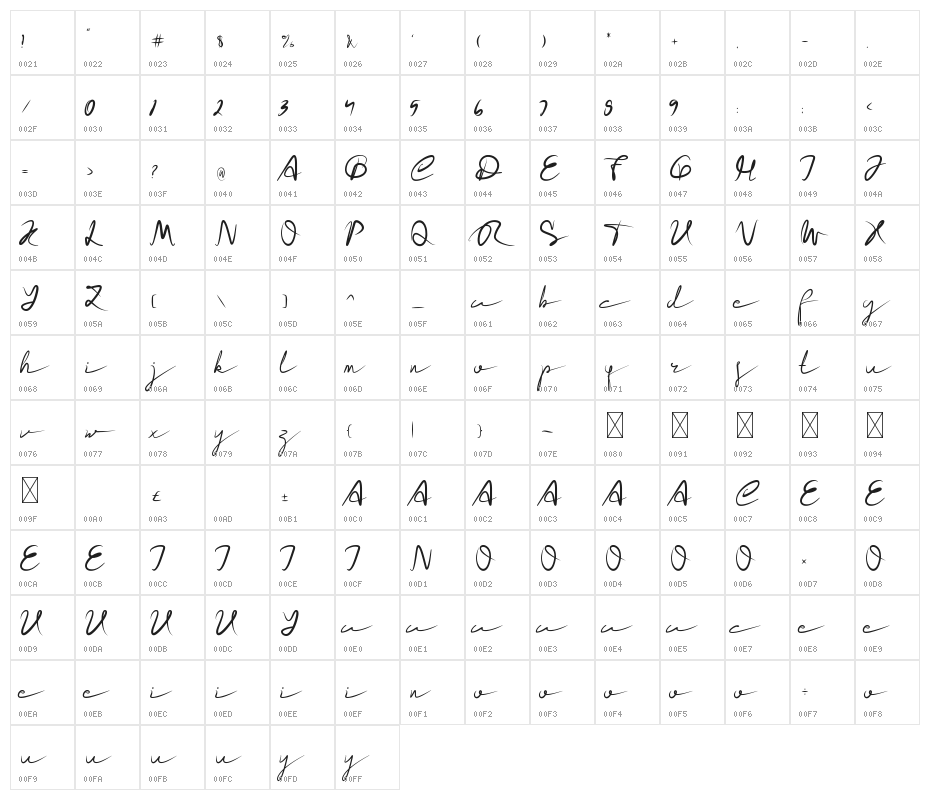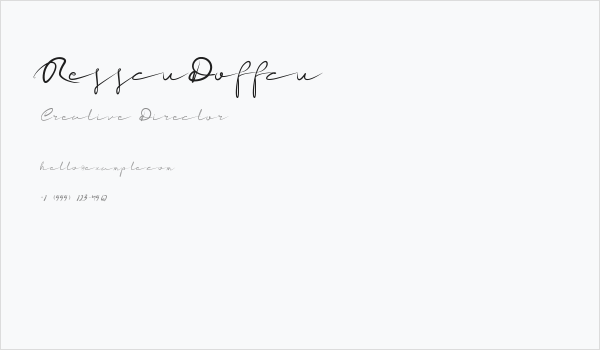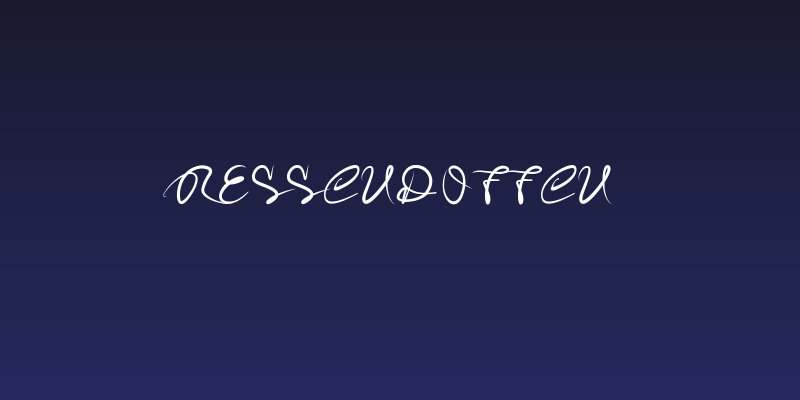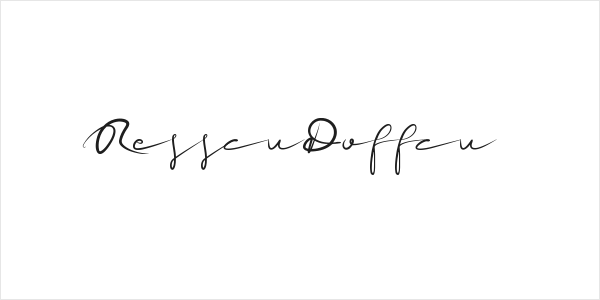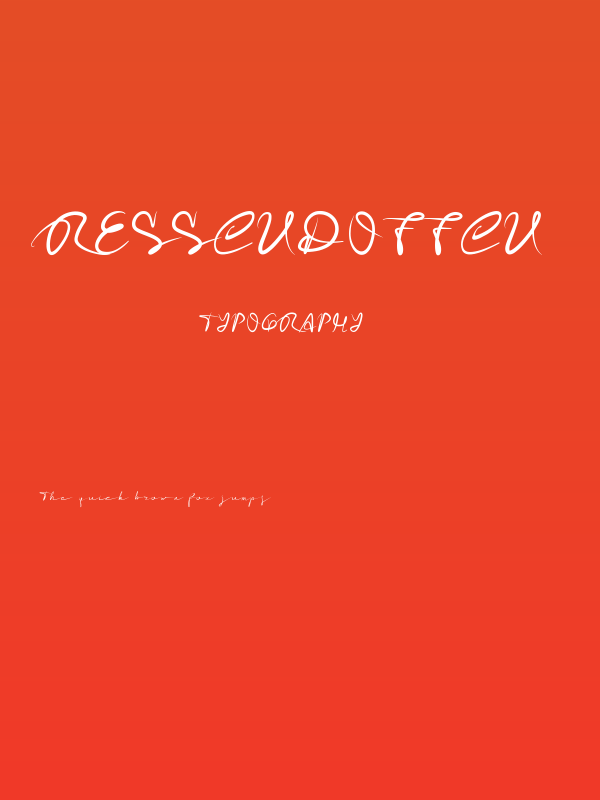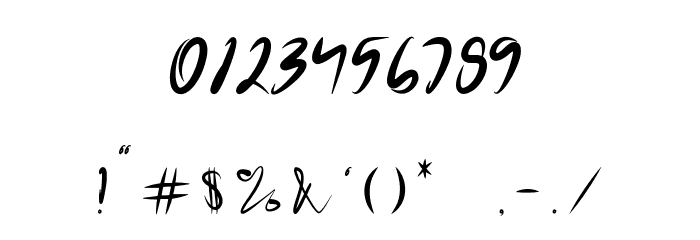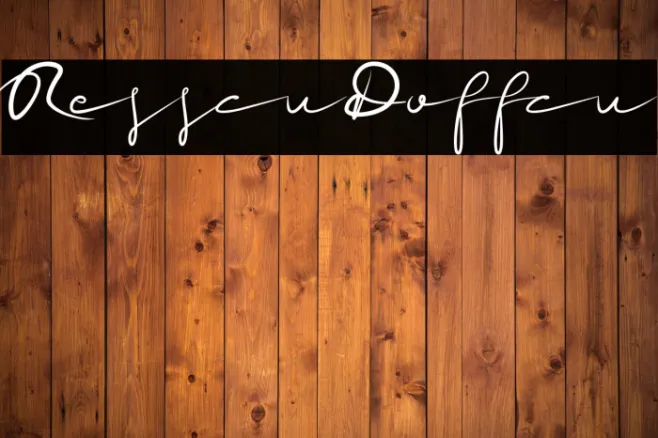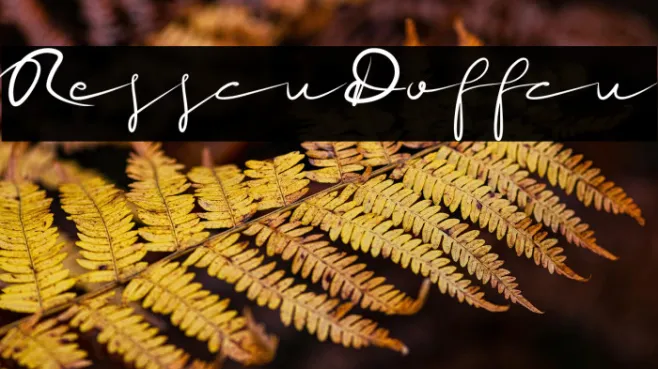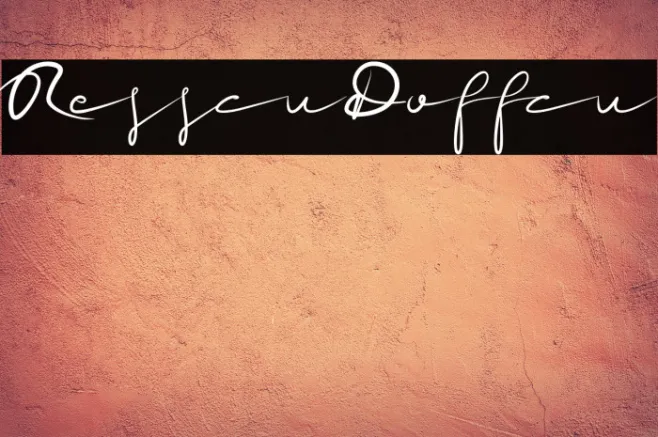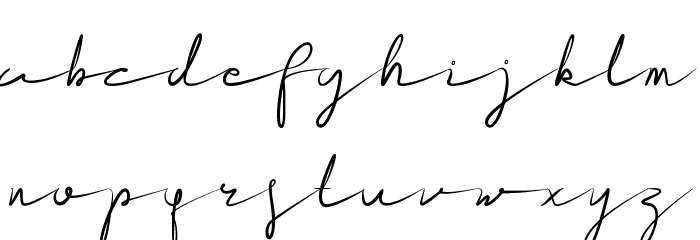
ResscuDoffcu Font
ResscuDoffcu Description
This font features an elegant and fluid script style, characterized by its flowing, interconnected strokes that mimic the natural motion of handwriting. The uppercase letters are bold and expressive, with a slight slant that adds a dynamic feel. The lowercase letters maintain a consistent flow, enhancing readability while retaining a sophisticated appearance. Numerals are designed to complement the overall style, with a balanced mix of curves and straight lines. Special characters are thoughtfully integrated, ensuring versatility in various design contexts.
| Proposed Projects | Ideal for wedding invitations, elegant branding, personal stationery, and artistic projects that require a touch of sophistication. |